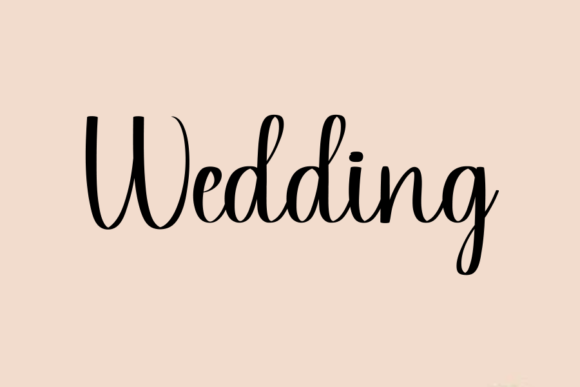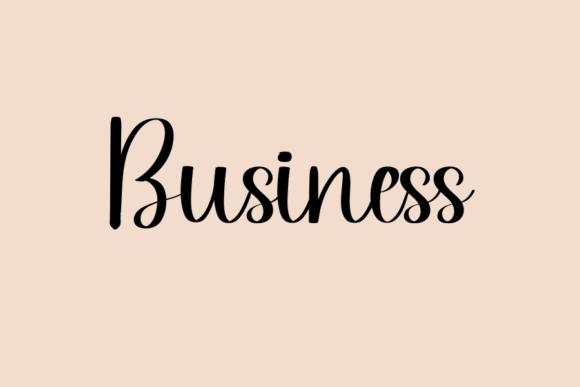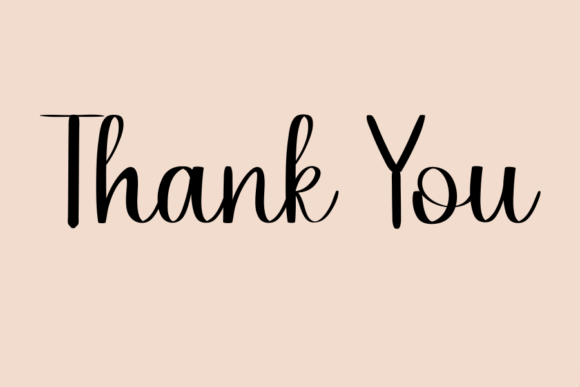
Monica Font
About Monica Font
Monica is a clean, easy to read and delicate handwritten font. This font was particularly crafted for those who need a beautiful and refreshing look to their designs.